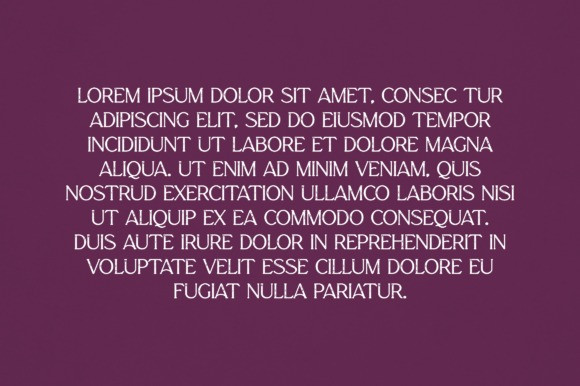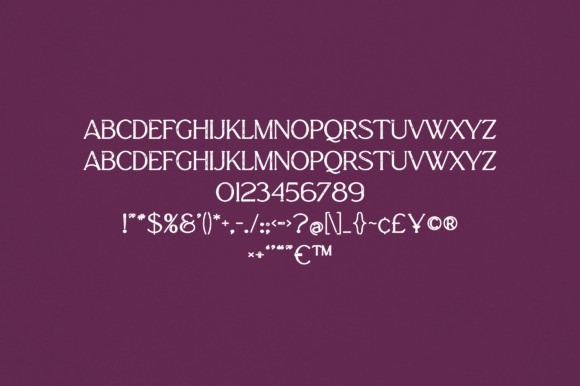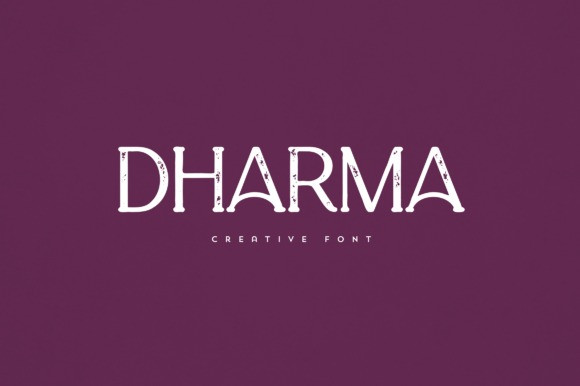
Dharma Font
Dharma Font is an elegant and versatile font that will make your typography truly unique! It will enchant every logo, branding, headline, or plain text!